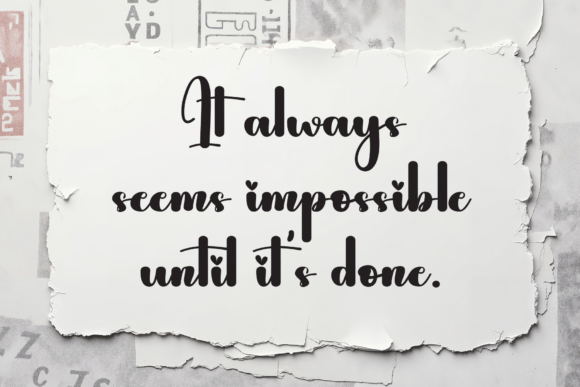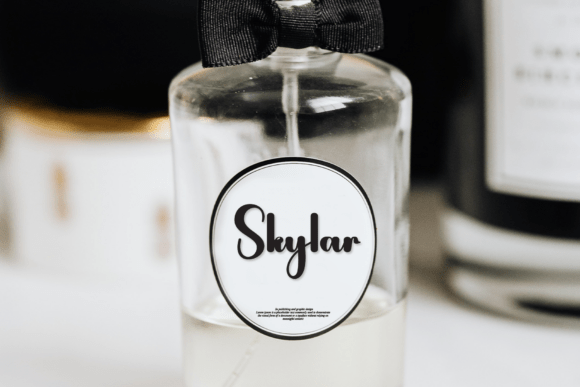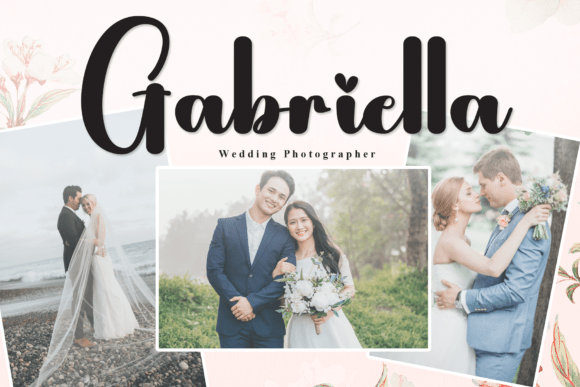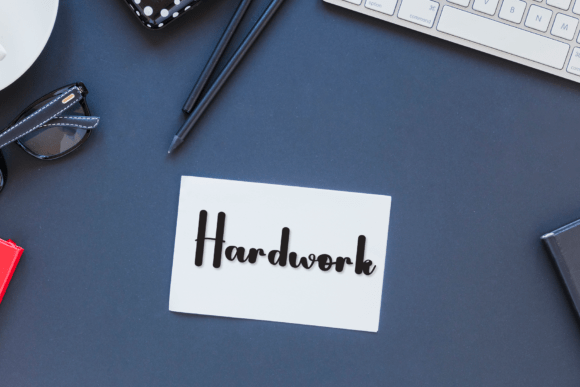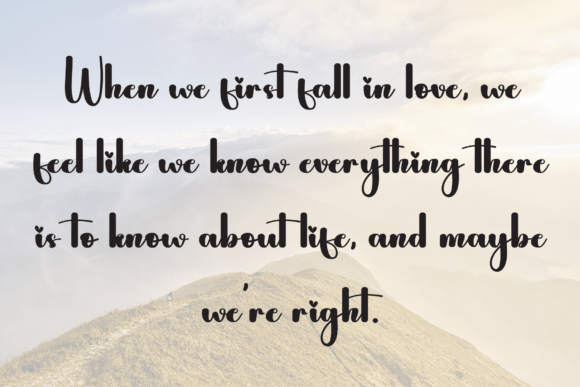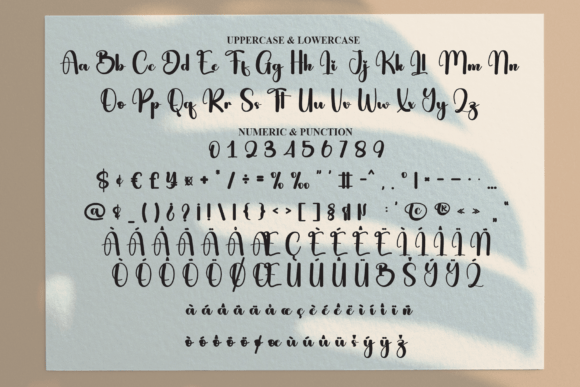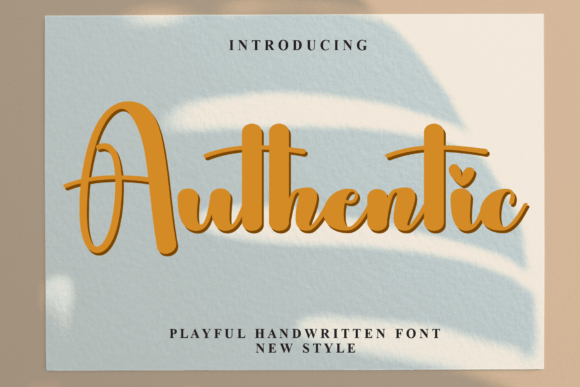
Have you ever stared at a blank page, struggling to find the perfect font to bring your design to life? The blank canvas staring back at you, taunting you with its emptiness? You know the feeling – it’s like trying to capture a fleeting thought or emotion, but the words just won’t come.
That’s where Authentic Font comes in – a special collection of creative products designed to give you an extraordinary experience. Whether you’re a seasoned designer or just starting out, Authentic Font is the perfect companion for your next project. With its versatility and ease of use, it’s no wonder why designers swear by it.
With Authentic Font, you’ll have access to a wide range of styles and designs that can be used in everything from wedding invitations to product packaging. And with its compatibility with popular design software, you can rest assured that your project will look professional and polished every time.
- Unique Character Set: Authentic Font includes a comprehensive character set, including Latin, Cyrillic, and Greek alphabets, as well as a range of punctuation and symbol glyphs.
- High-Quality Typography: Authentic Font features precise typography, with carefully crafted letterforms and subtle nuances that enhance readability and visual appeal.
- Multi-Language Support: Authentic Font is designed to support multiple languages, including English, Spanish, French, German, Italian, Portuguese, Dutch, Russian, and many others.
- Scalability and Versatility: Authentic Font is optimized for use in various design applications, from print to digital media, and can be scaled up or down without compromising its quality or legibility.
Authentic Font Review
As a designer, I was excited to dive into the Authentic Font and see if it would live up to its name. The first thing that caught my attention was the ✨ unique texture and subtle imperfections that give the font a hand-crafted feel. This makes it perfect for projects that require a touch of authenticity and personality.
Another strength of the Authentic Font is its ✨ versatility. It can be used for a wide range of applications, from logos and branding to body text and headings. The font also comes in a variety of weights and styles, making it easy to customize to fit your needs.
While the Authentic Font has its strengths, there are a few areas where it falls short:
- ⚠️ Limited language support, which may be a concern for projects that require multilingual support.
- ⚠️ Some characters may appear fuzzy or distorted at larger font sizes, which can affect readability.
- ⚠️ The font may not be suitable for projects that require extreme precision or uniformity, as its imperfections can be distracting in certain contexts.
Overall, I’d say the Authentic Font is a solid choice for designers looking for a unique and versatile font. While it may have some limitations, its strengths make it a great addition to any design project.
- Use it for headings and titles to add a touch of elegance and sophistication.
- Pair it with other fonts to create a unique and eye-catching design.
- Book covers and publishing materials.